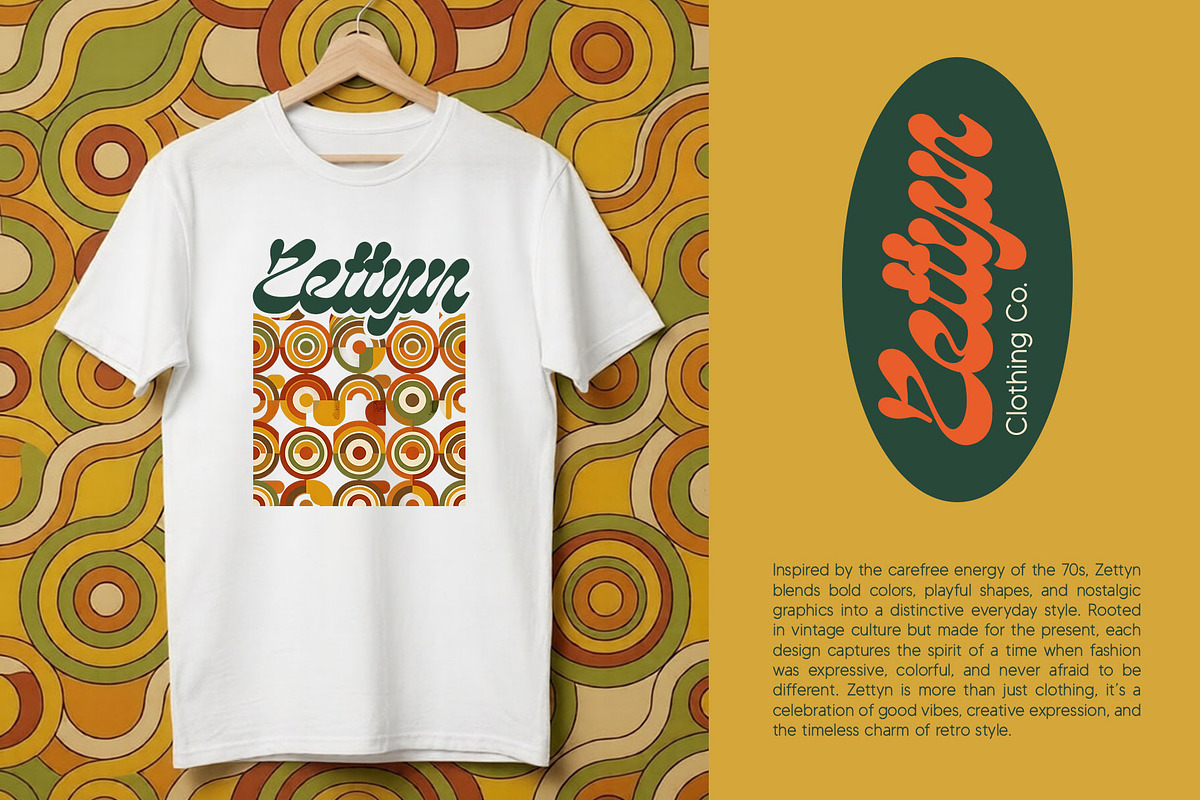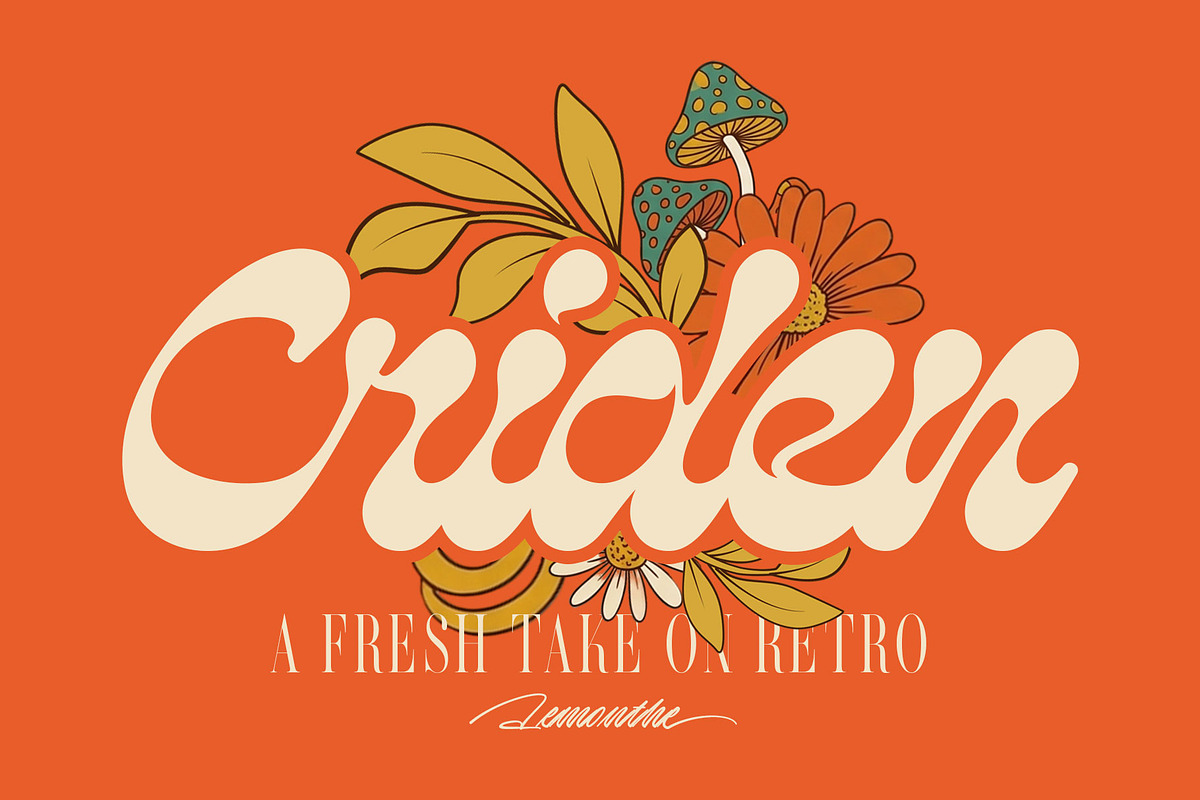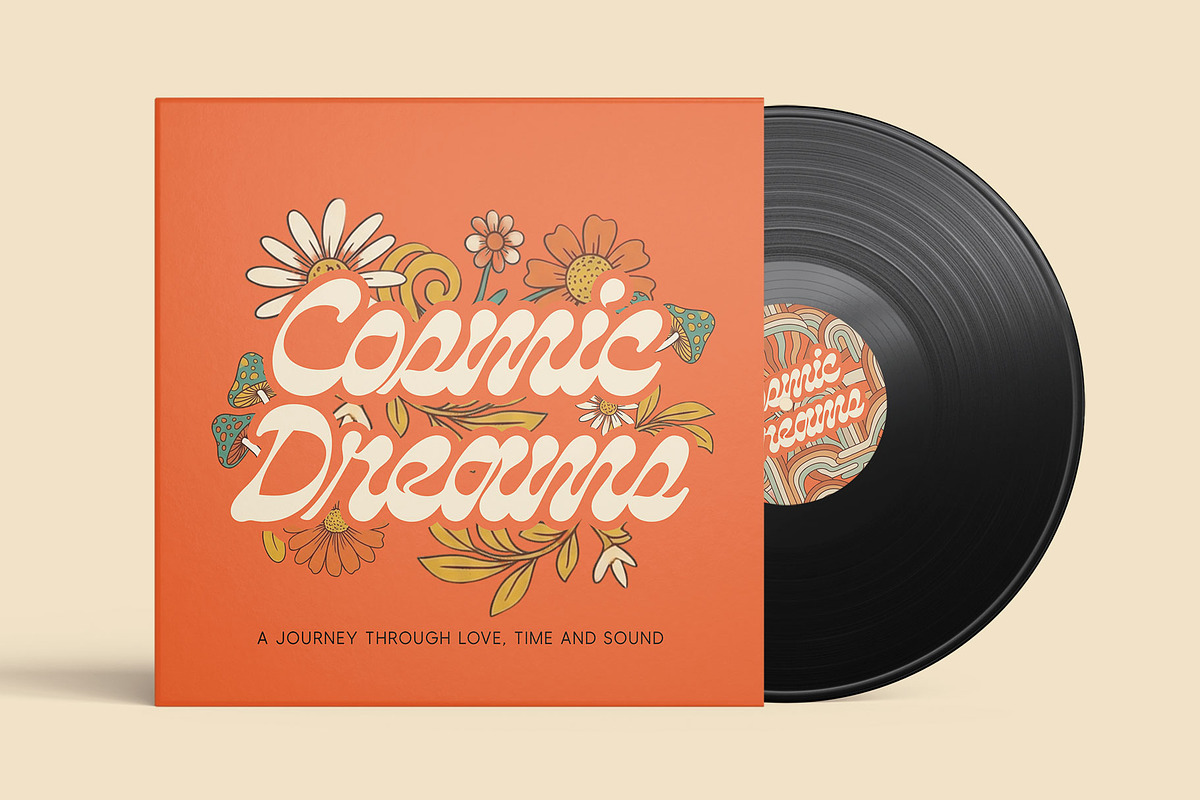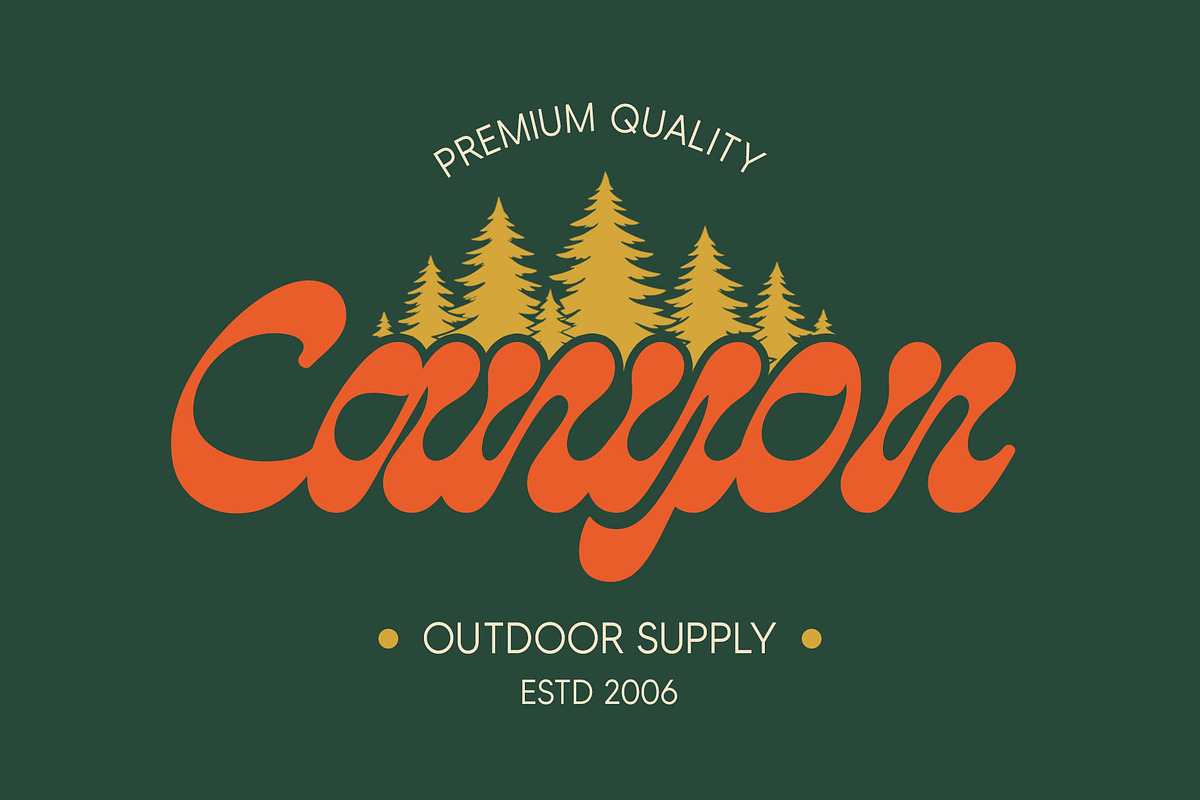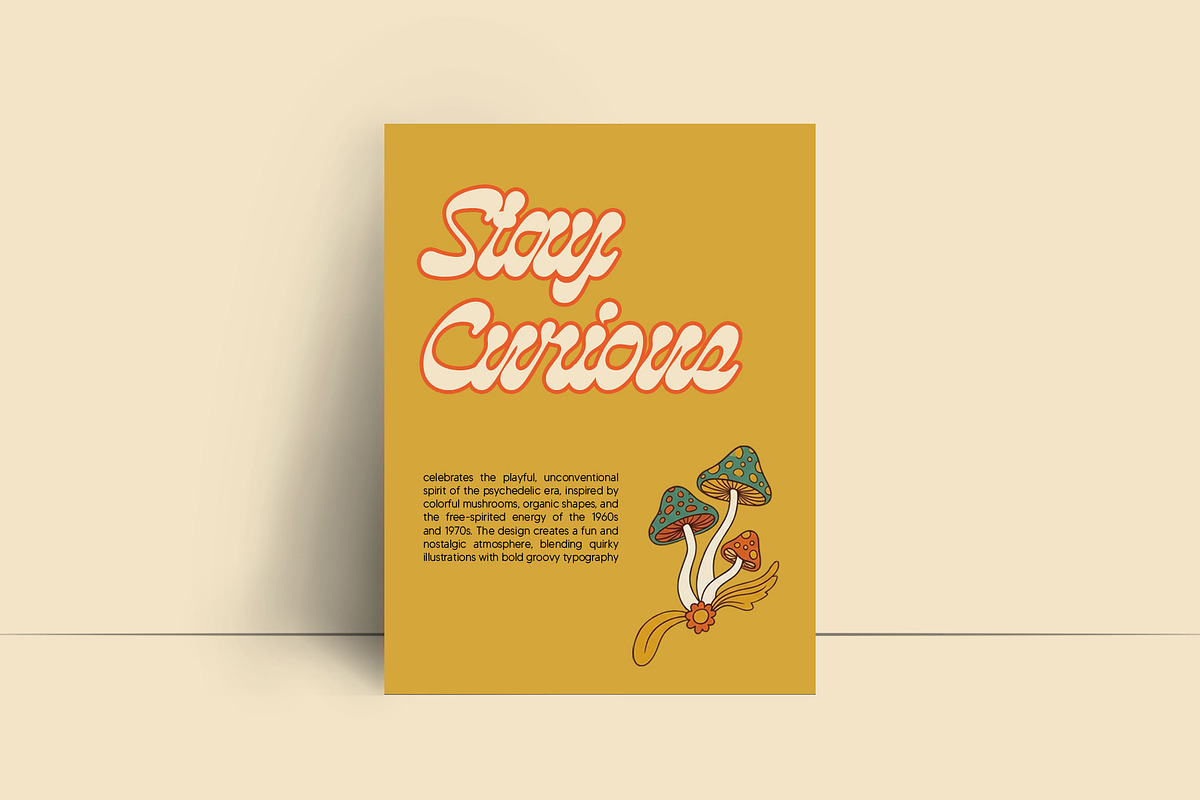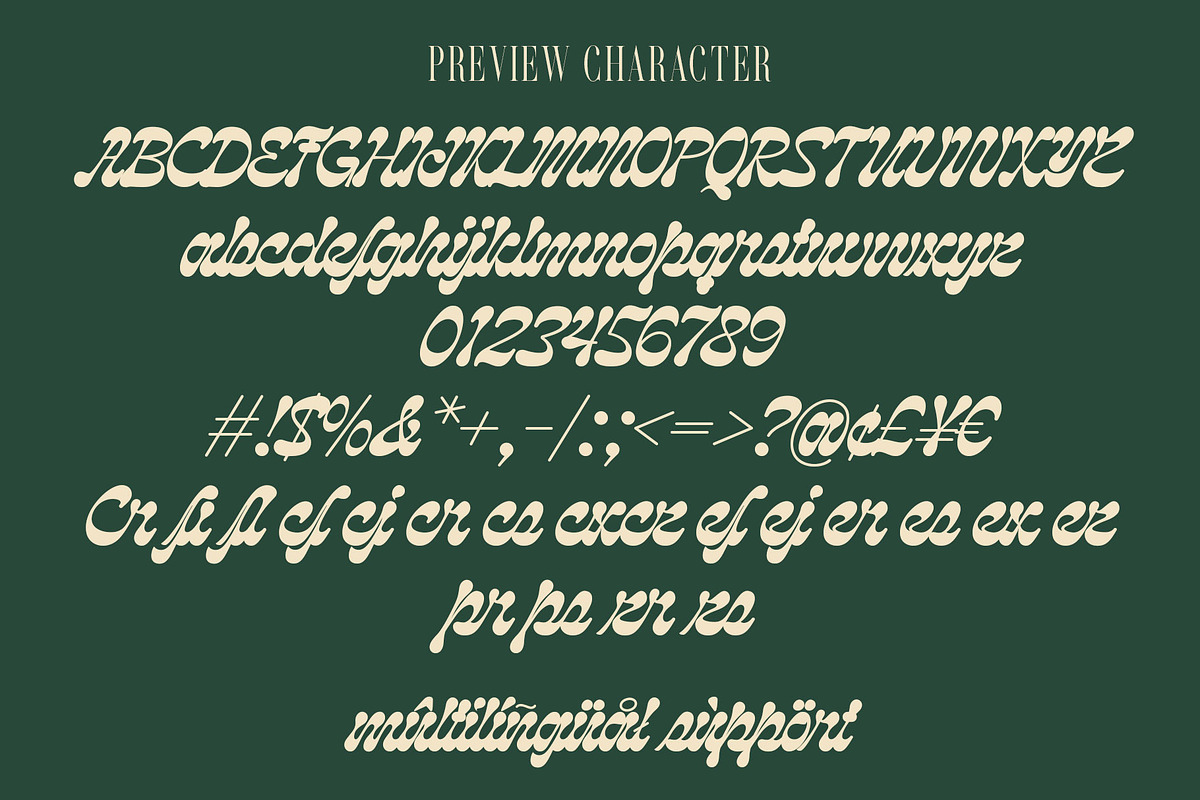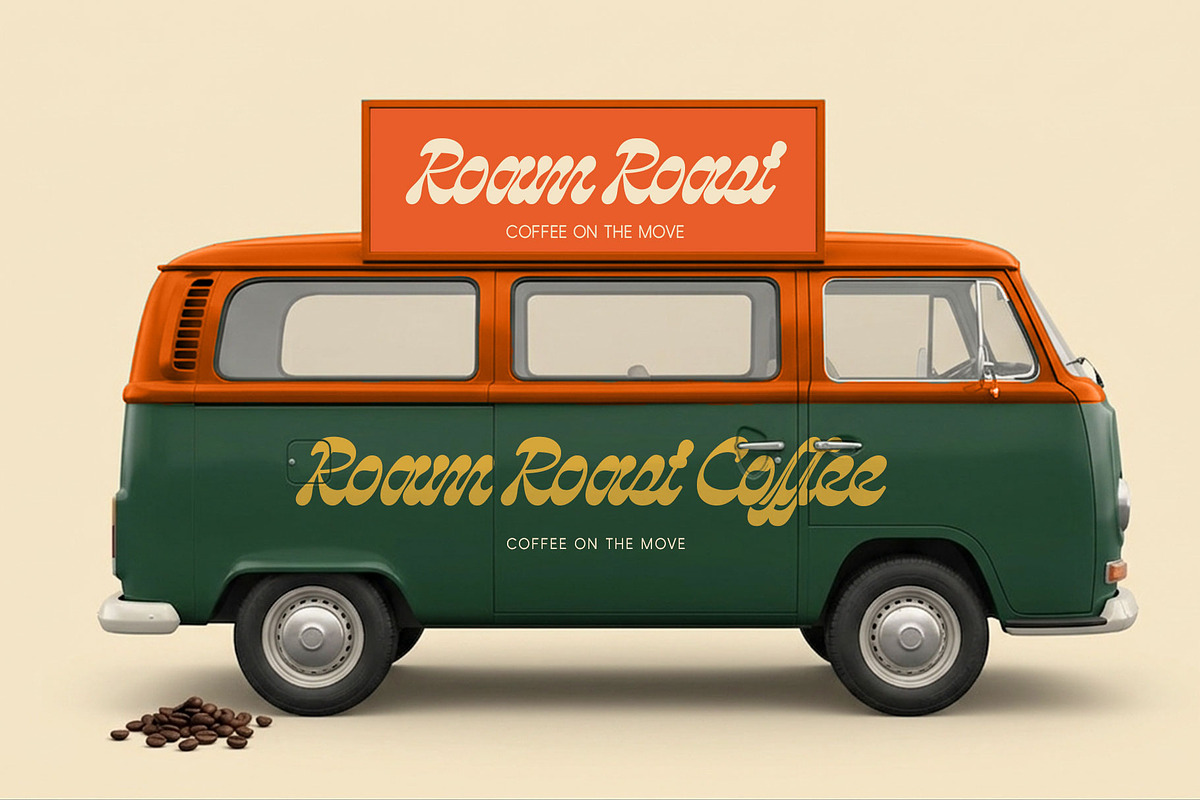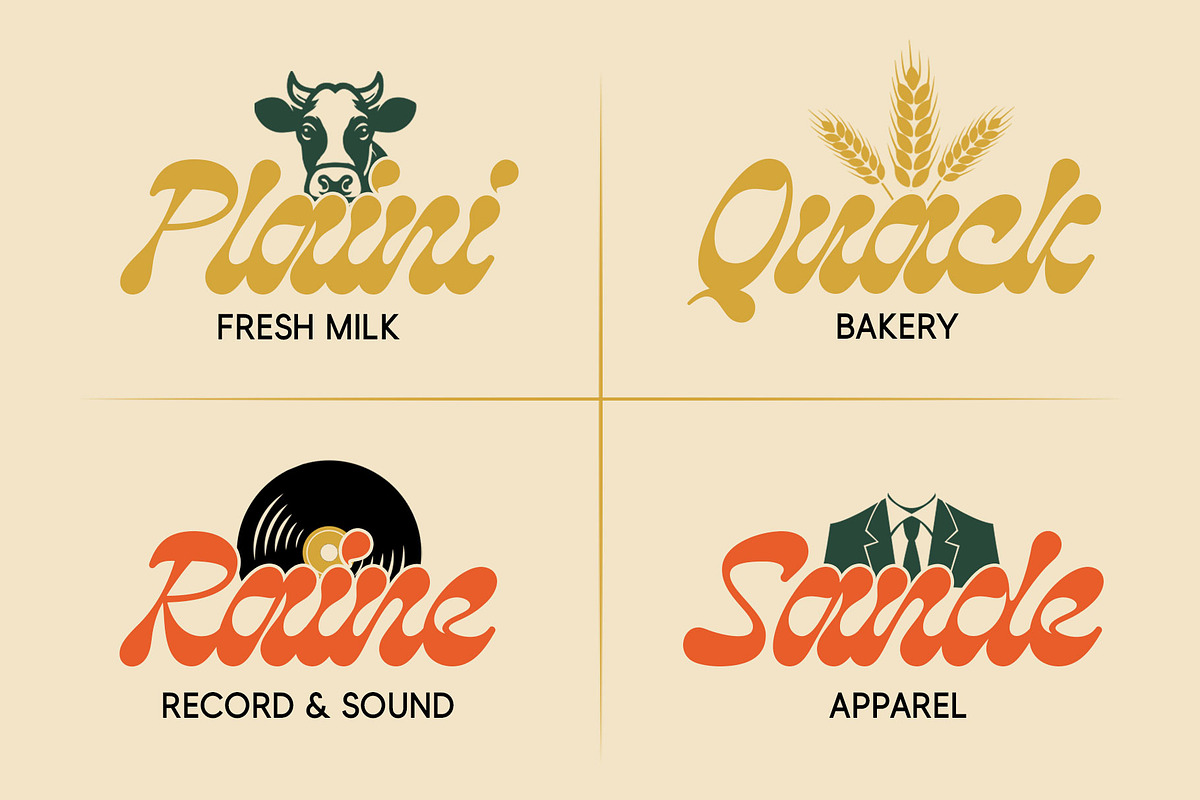
Criden | Display Script
Criden is a bold and expressive retro display font inspired by the playful spirit of vintage lettering and the vibrant aesthetics of the 1960s and 1970s. With its flowing curves, chunky shapes, and distinctive organic forms, Criden brings a warm, nostalgic character while maintaining a fresh and contemporary feel. Its dynamic letterforms make it perfect for logos, apparel designs, posters, album artwork, packaging, branding, stickers, and other creative projects that need a strong retro personality. Criden is designed to stand out and add an authentic vintage touch to modern visual compositions.
Numerals and Punctuation